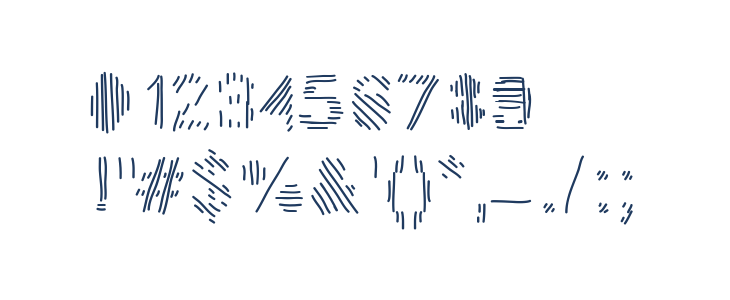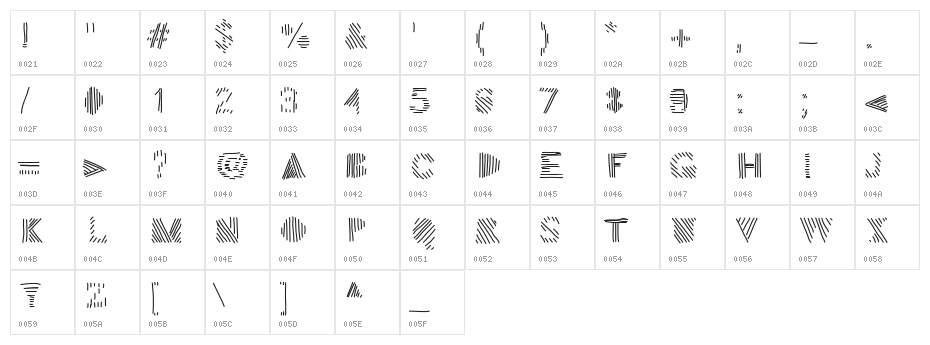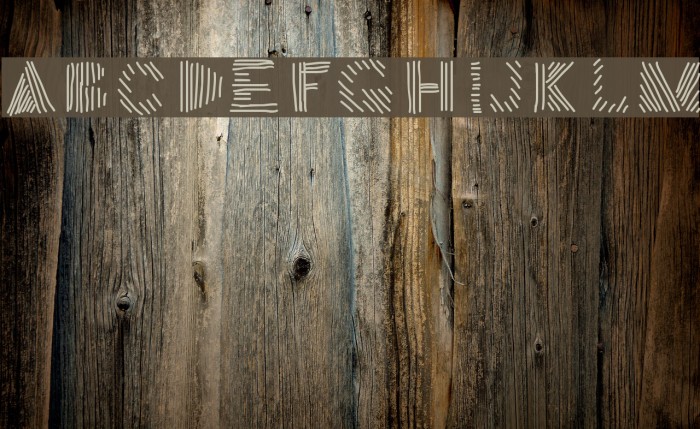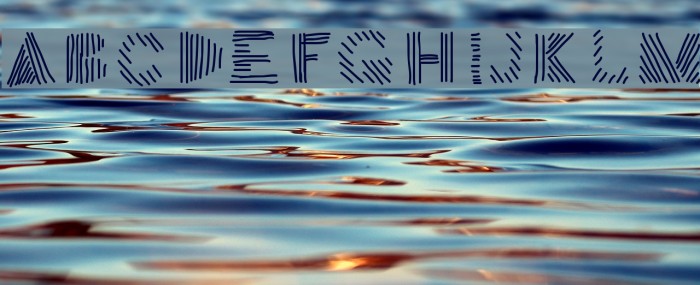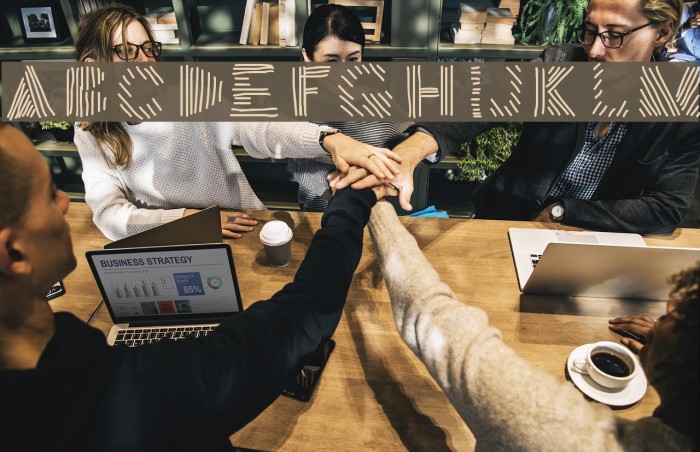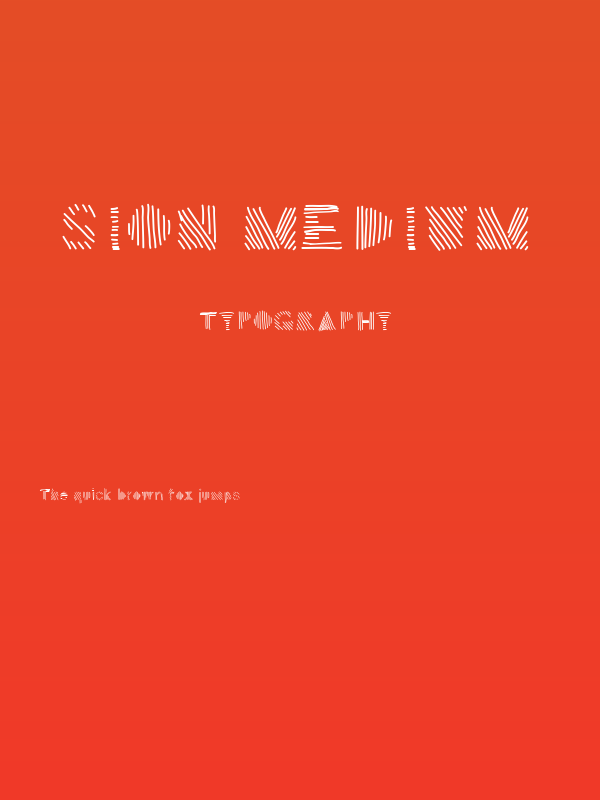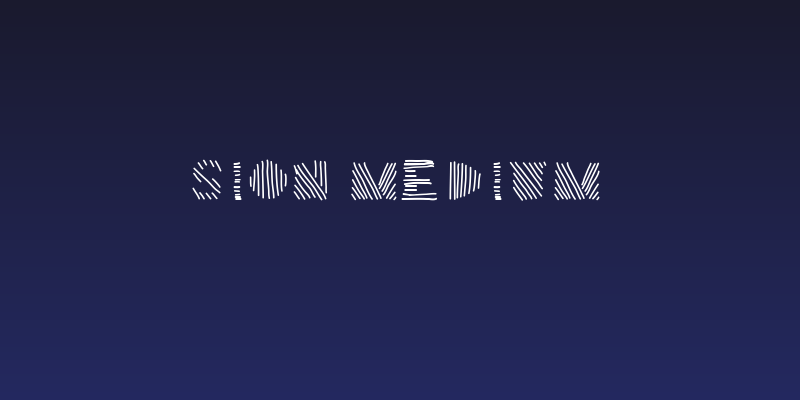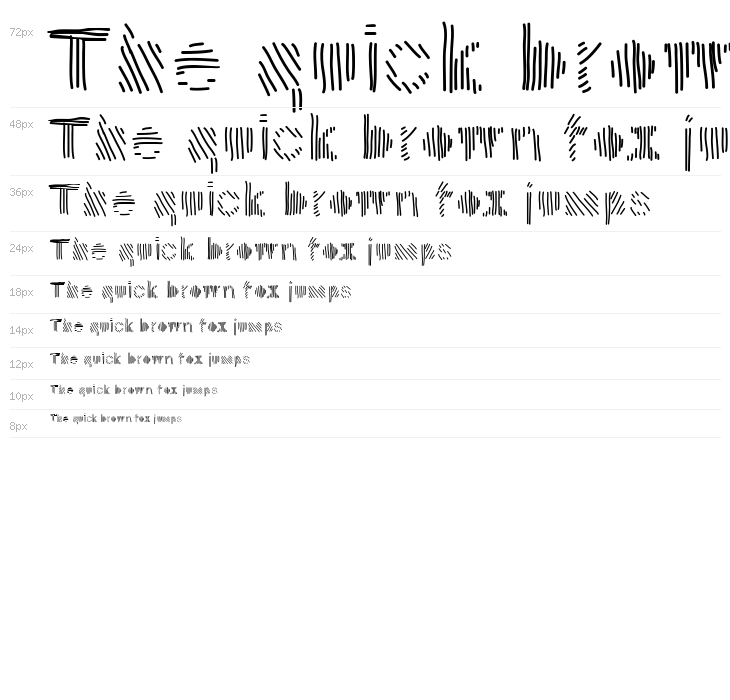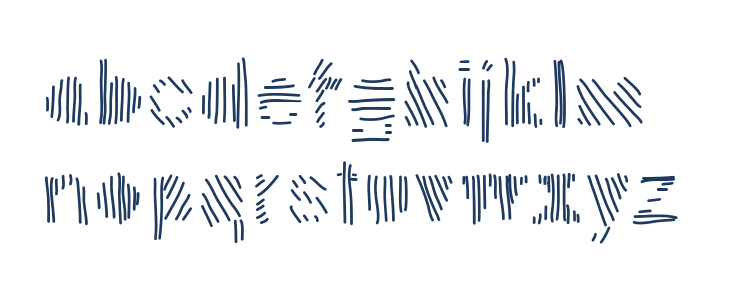
Sion Medium Font
Sion Medium Description
This font features a unique and artistic design characterized by diagonal lines that form each letter and number. The style is highly decorative, with a modern twist that gives it a dynamic and energetic feel. The characters are composed of parallel lines, creating a sense of movement and rhythm. This design choice makes the font stand out, offering a visually striking appearance that is both playful and sophisticated. The font's distinctive style is suitable for creative projects where a bold statement is desired. Its unconventional structure makes it ideal for use in branding, advertising, and artistic endeavors.
| Proposed Projects | Ideal for branding, advertising, posters, and artistic projects requiring a bold and creative touch. |